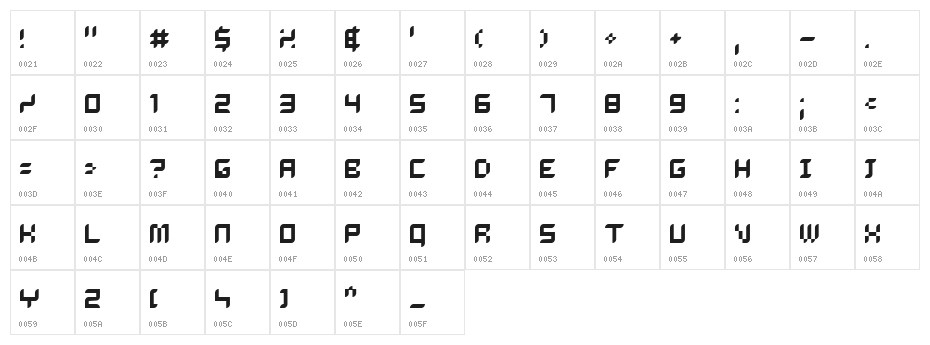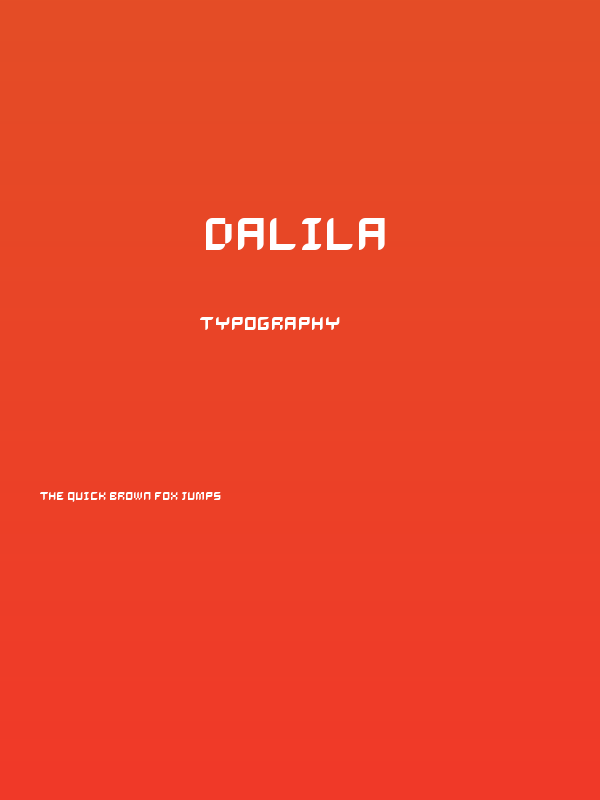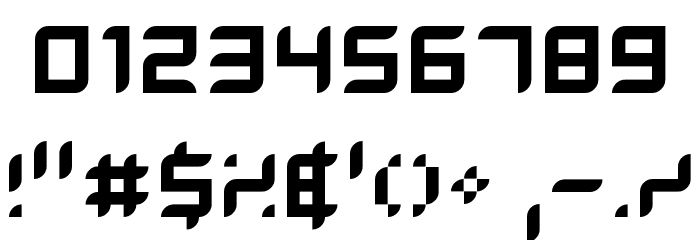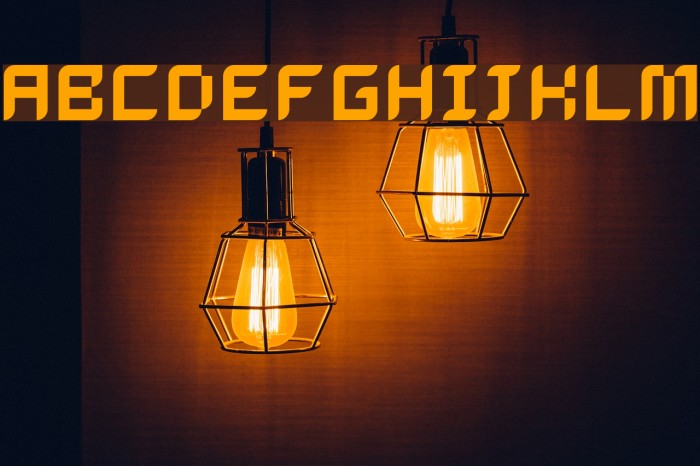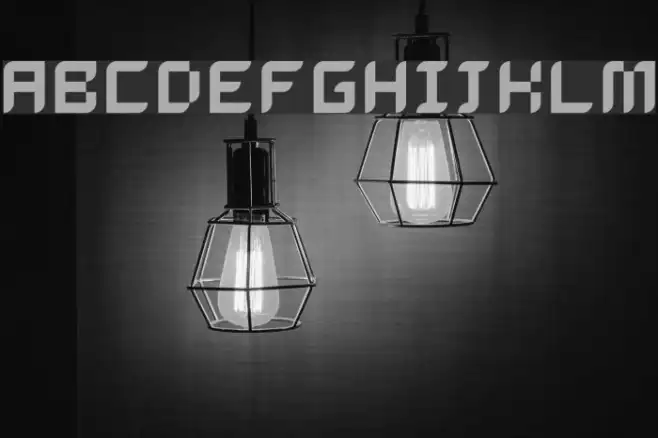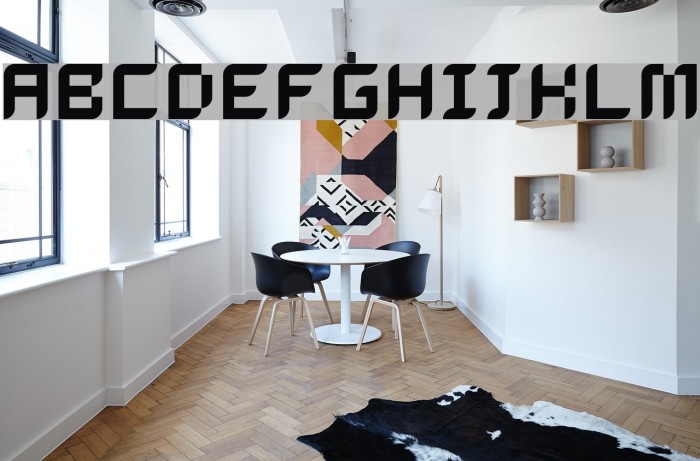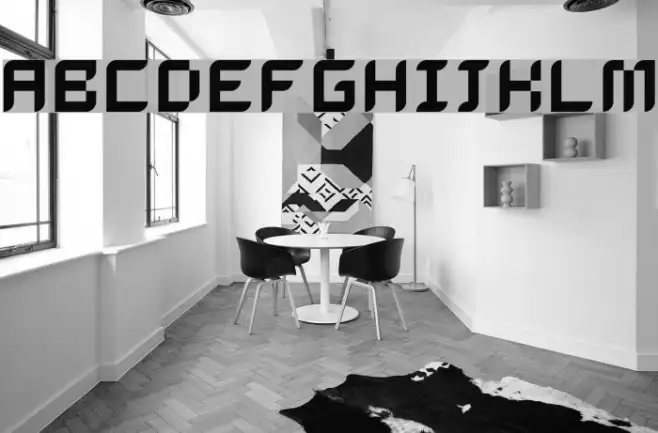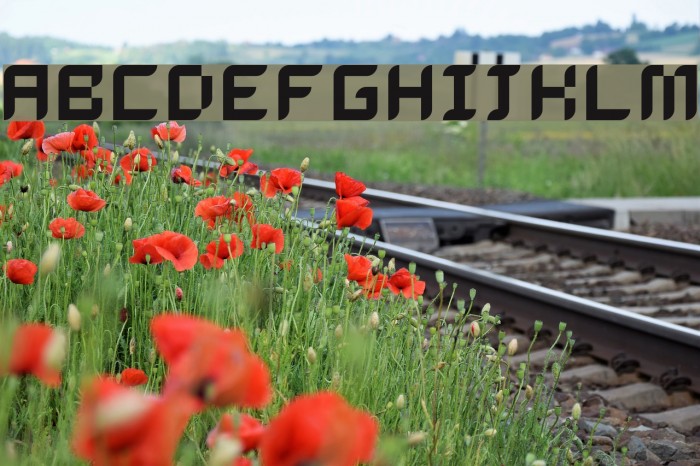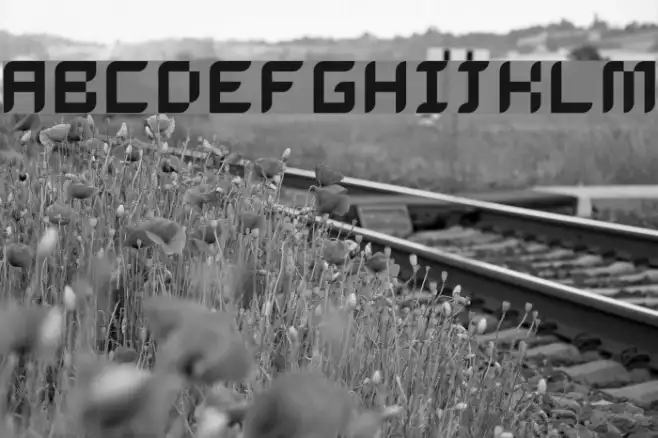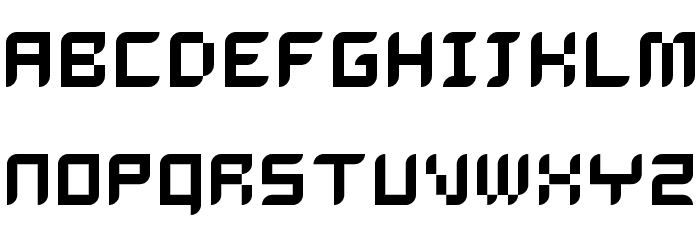
Dalila Font
Dalila Description
This font features a bold and geometric design with a futuristic flair. The characters are constructed with sharp angles and straight lines, giving it a distinct and modern appearance. The uppercase and lowercase letters maintain a consistent style, with uniform stroke widths and a blocky structure. The numerals and special characters follow the same design principles, ensuring a cohesive look across all glyphs. This font's unique style makes it stand out, offering a visually striking option for various design applications.
| Proposed Projects | Ideal for technology branding, sci-fi themed projects, video game interfaces, and modern poster designs. |